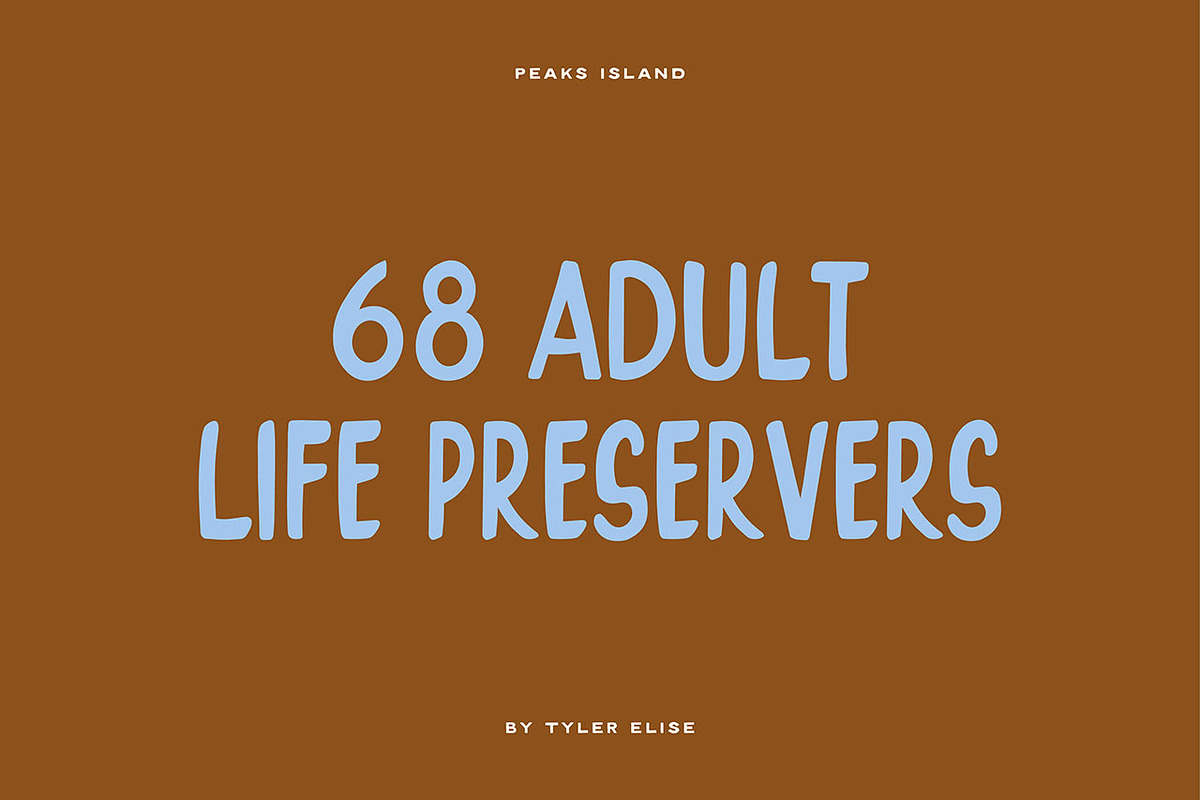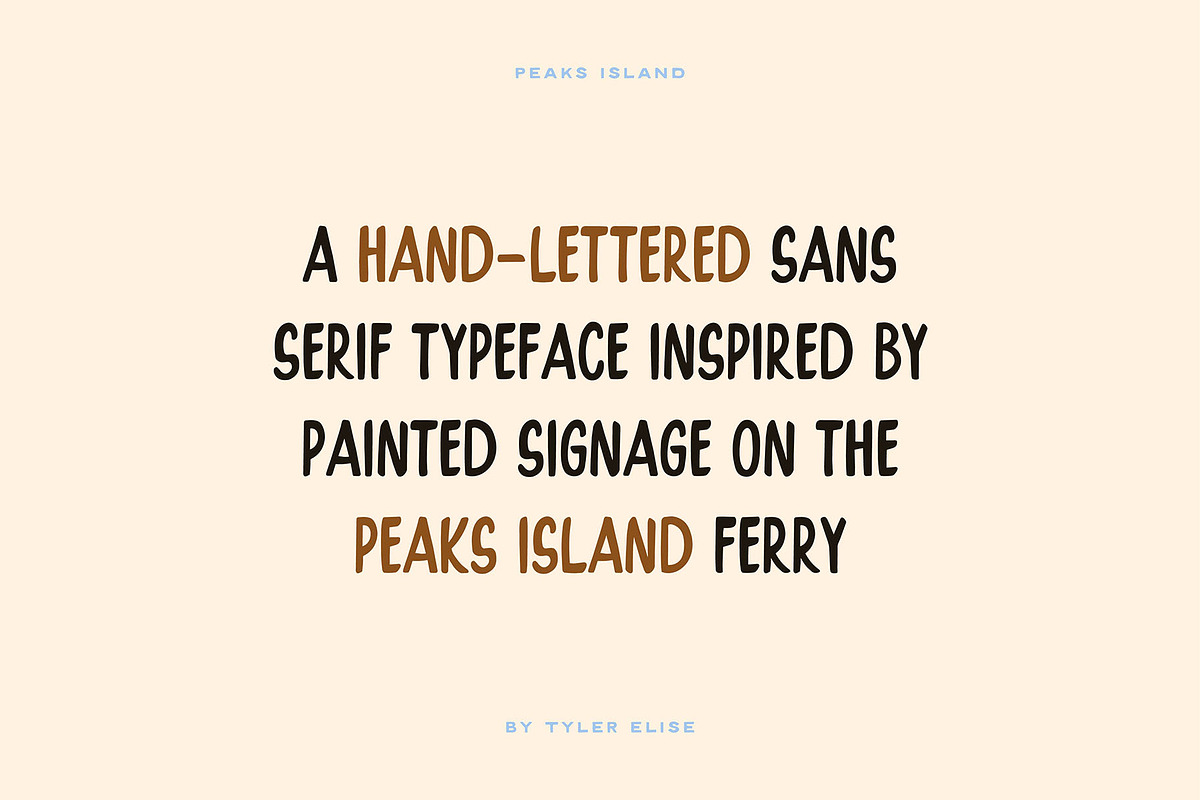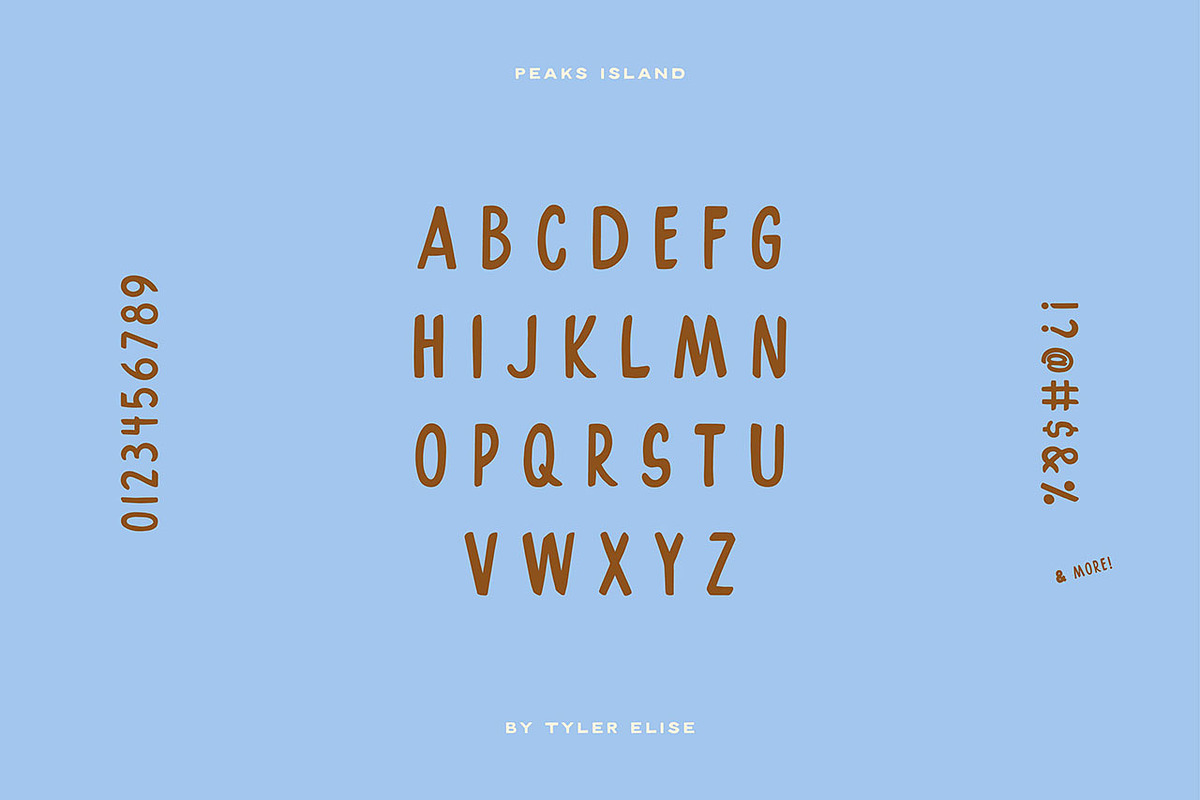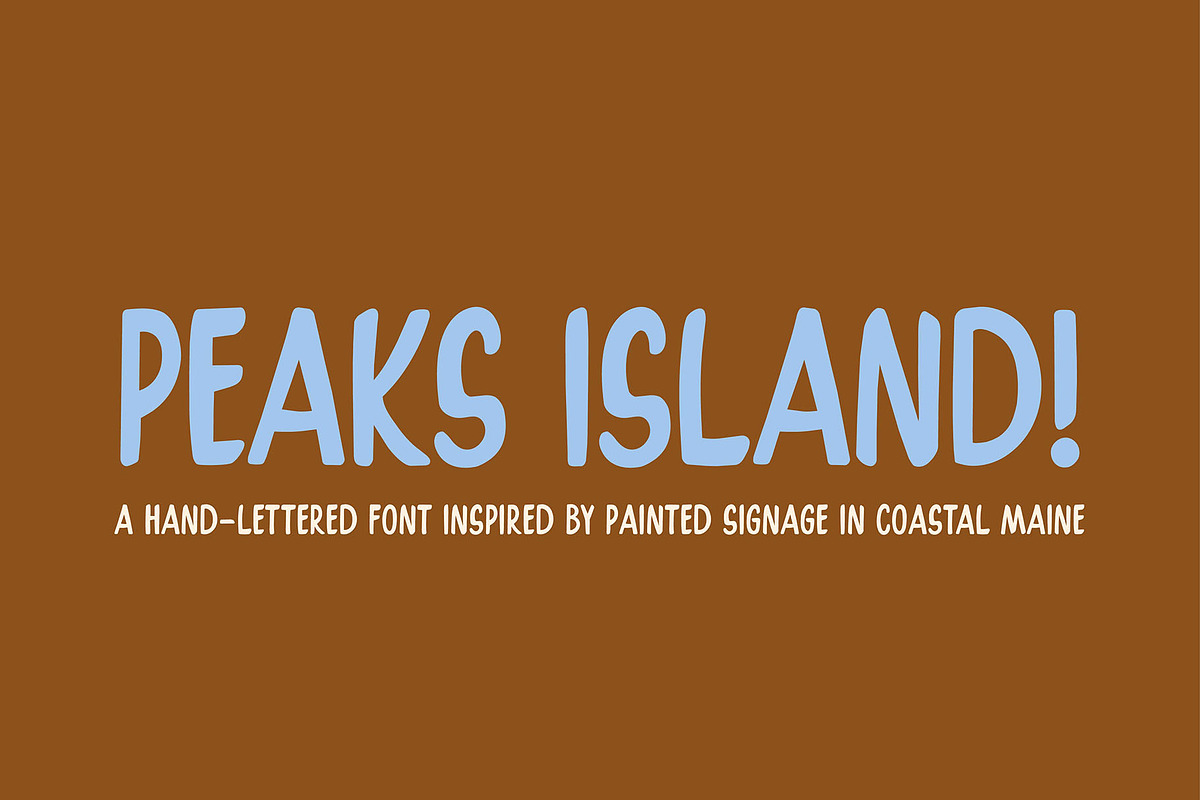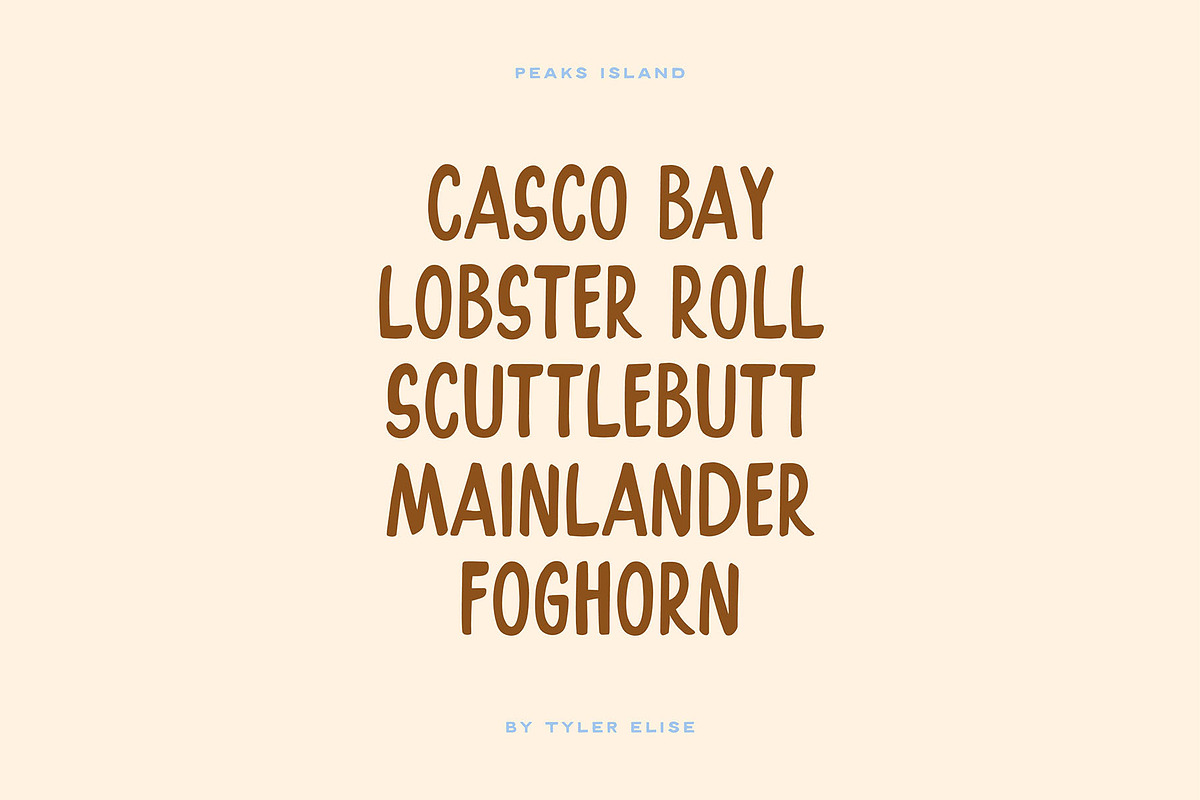
PEAKS ISLAND by Tyler Elise
PEAKS ISLAND is a hand-lettered font inspired by painted signage on the Peaks Island ferry. The all-caps, brush style is equal parts charming and loud, quite like most New Englanders.